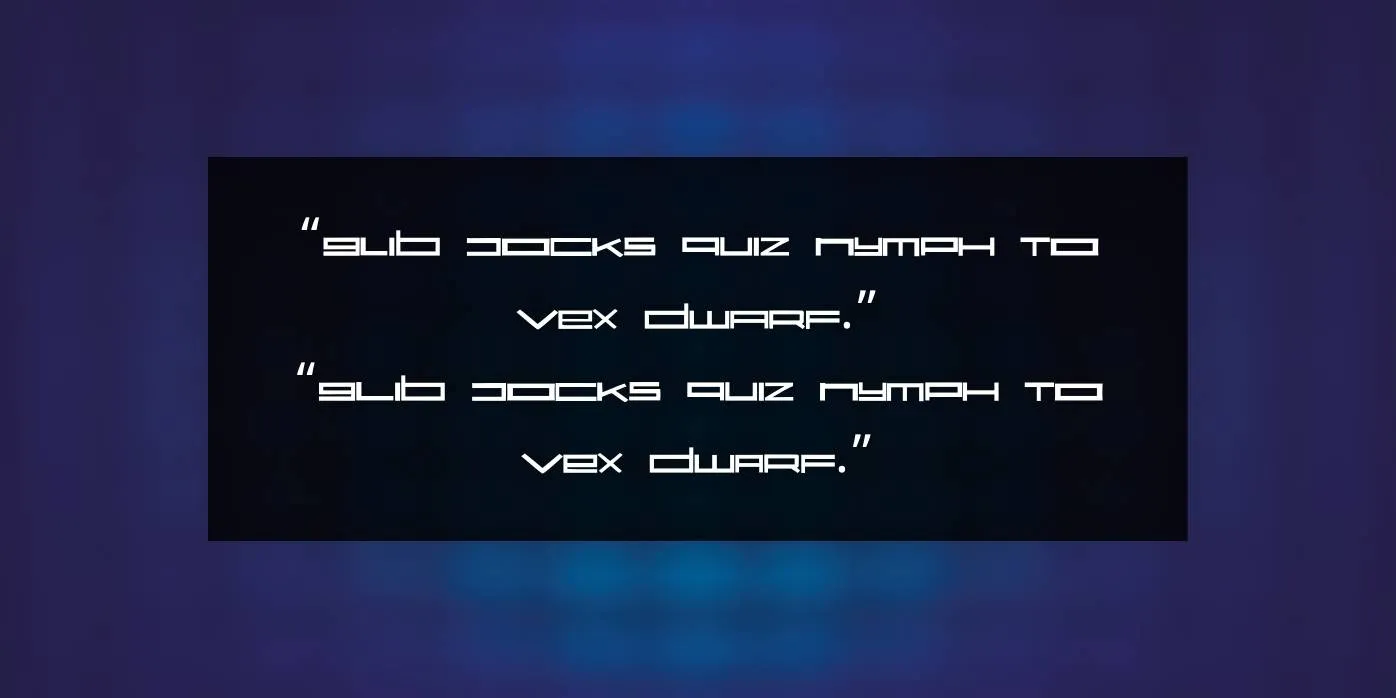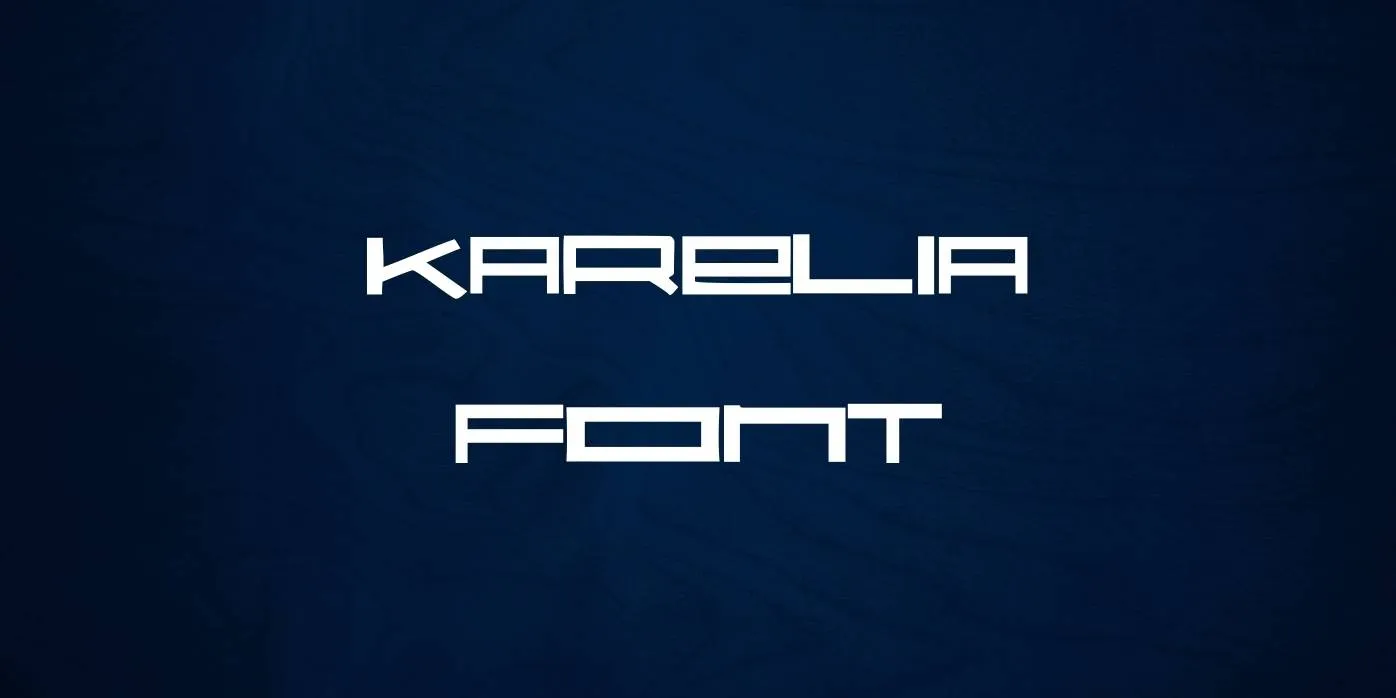
Karelia Font
Here, we present a stunning typeface that is known as Karelia Font. This family belongs to the category of sans serif family. The designer of this typeface is  Frode Helland. And he releases it for the first time on 2nd January 2018.
Karelia Font is a sans serif typeface featuring both old style and lining numerals, standard and discretionary ligatures, a pretty complete set of diacritics, as well as support for CE languages and even Esperanto. It’s available in regular and bold weights. You can use microsoft yahei font which has the same style and characters as this one. For Adobe projects it is a classic choice.